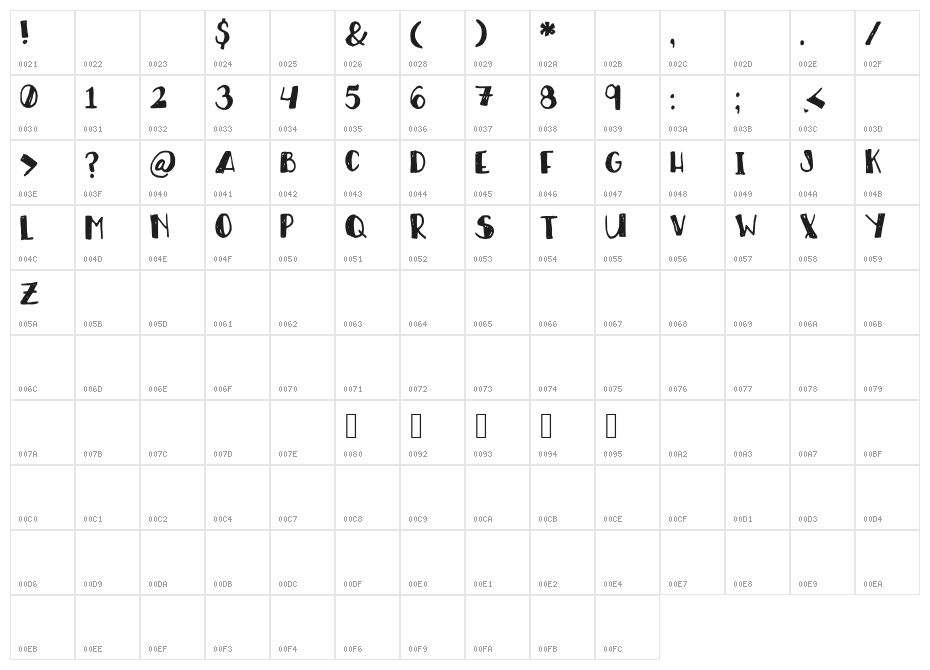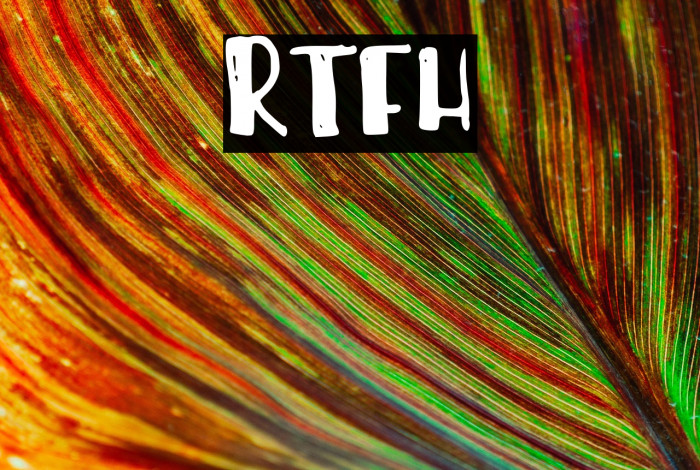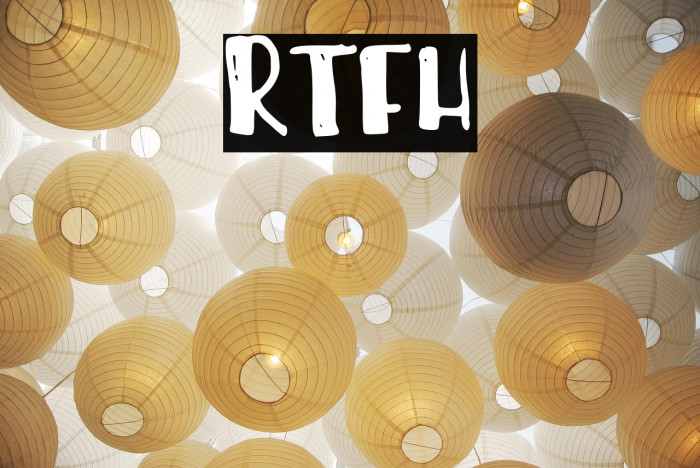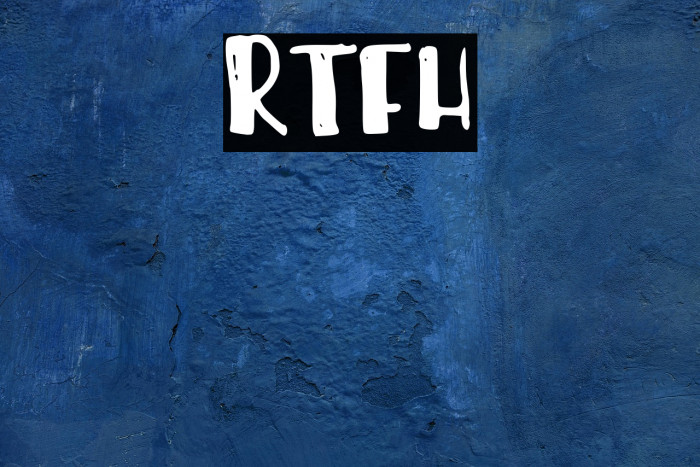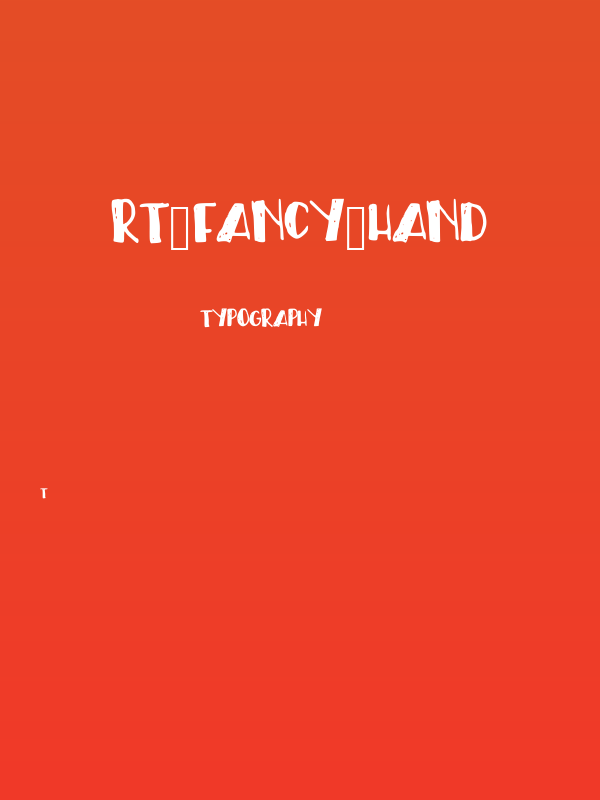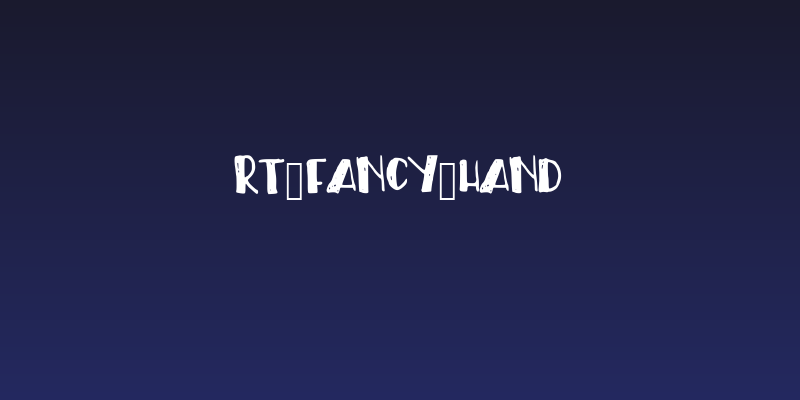
RT_Fancy_Hand Font
RT_Fancy_Hand Description
This font features a playful and artistic style, characterized by its bold and uneven strokes that give it a hand-drawn appearance. The letters are slightly irregular, adding a whimsical and informal touch. The uppercase letters are prominent and expressive, while the numbers and special characters maintain the same lively aesthetic. This font is perfect for projects that require a fun and creative vibe, such as children's books, posters, or greeting cards. Its unique style makes it stand out, capturing attention with its energetic and dynamic look.
| Proposed Projects | Ideal for children's books, posters, greeting cards, and creative projects. |